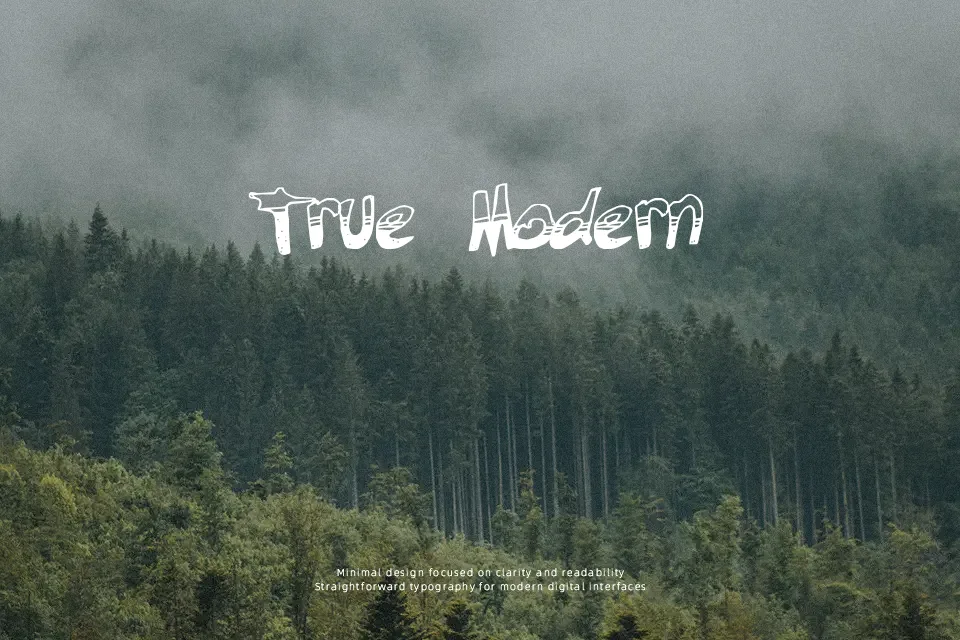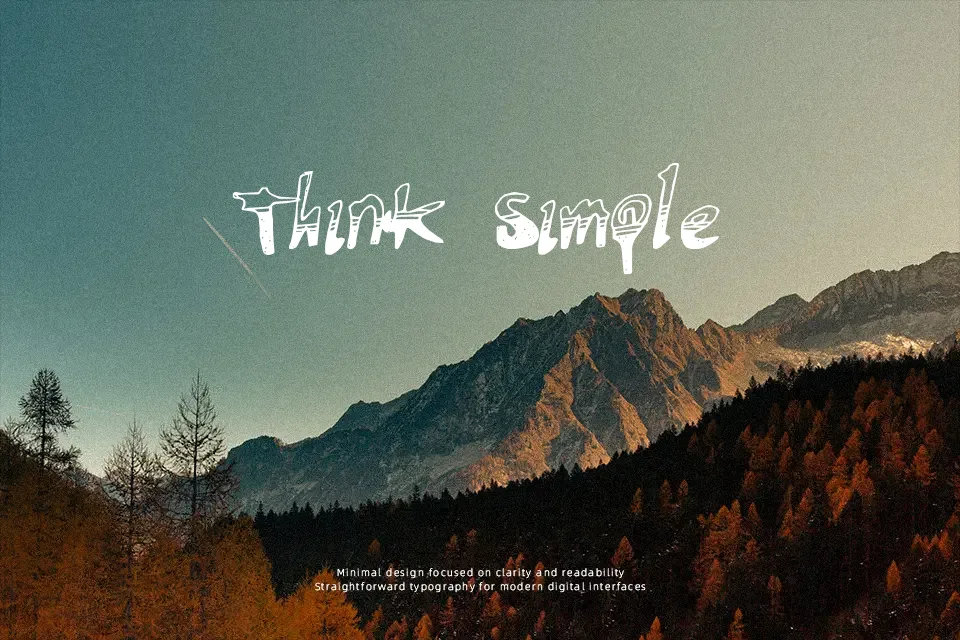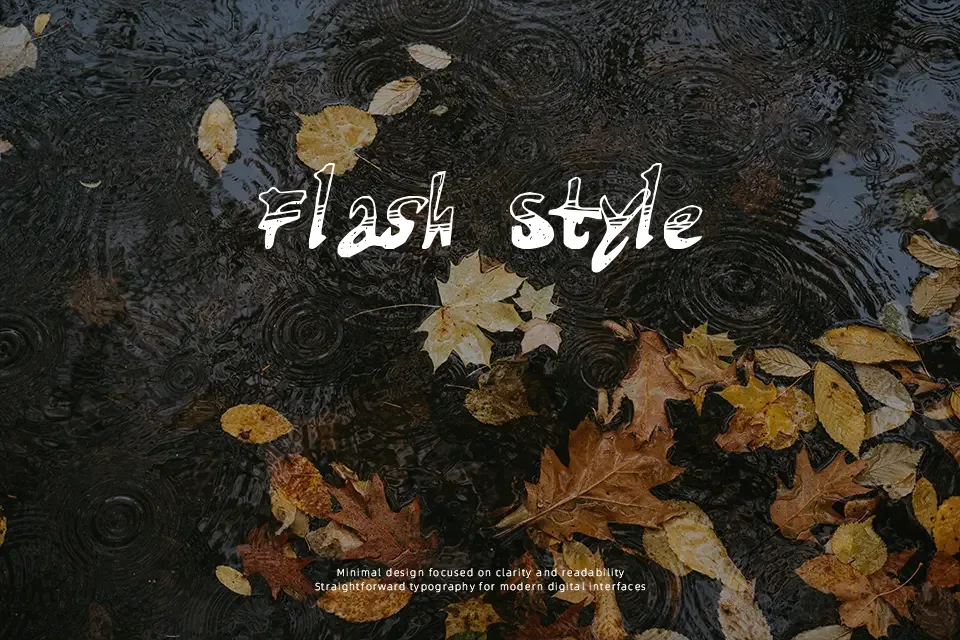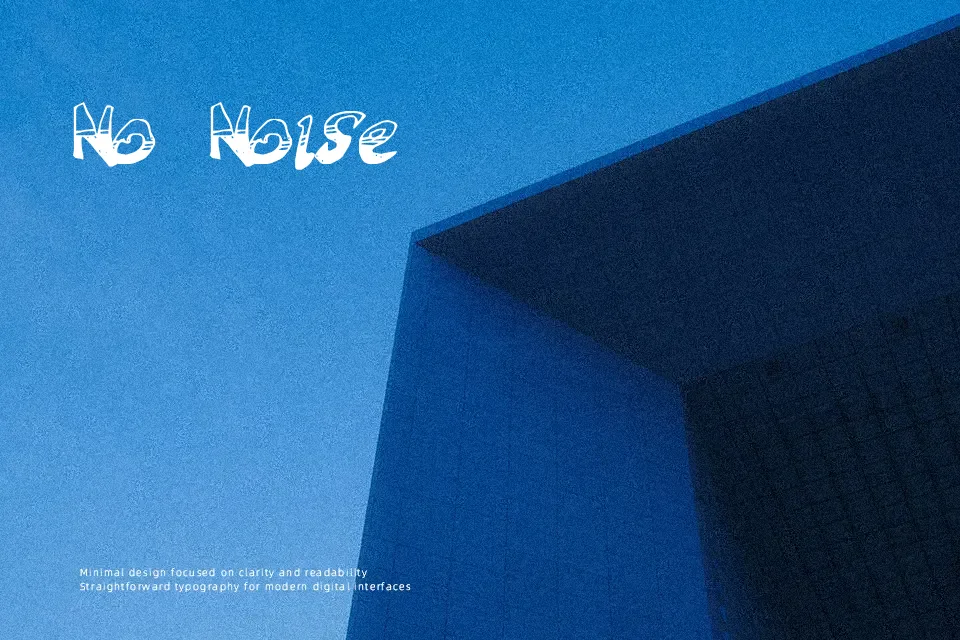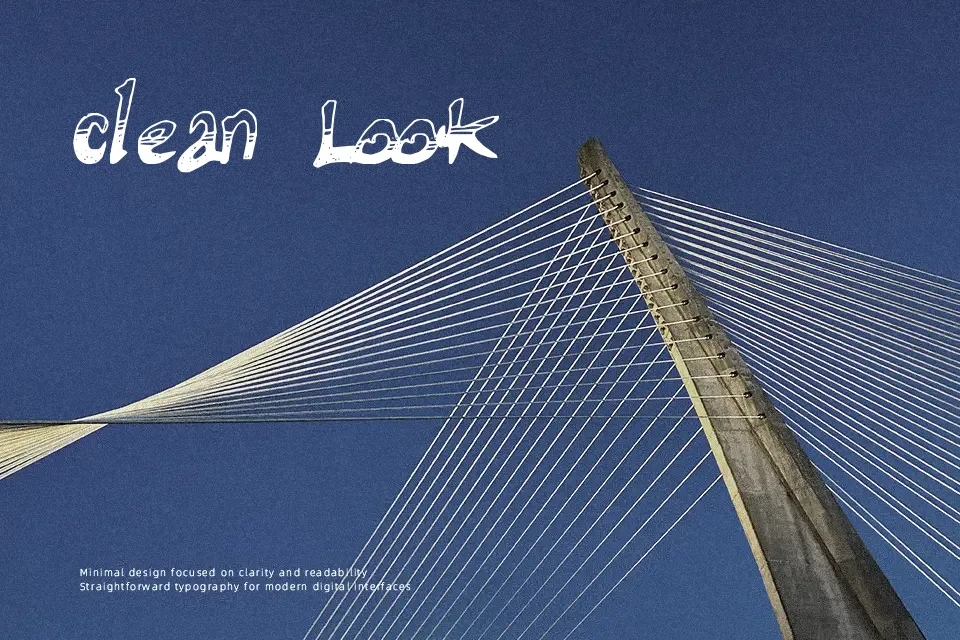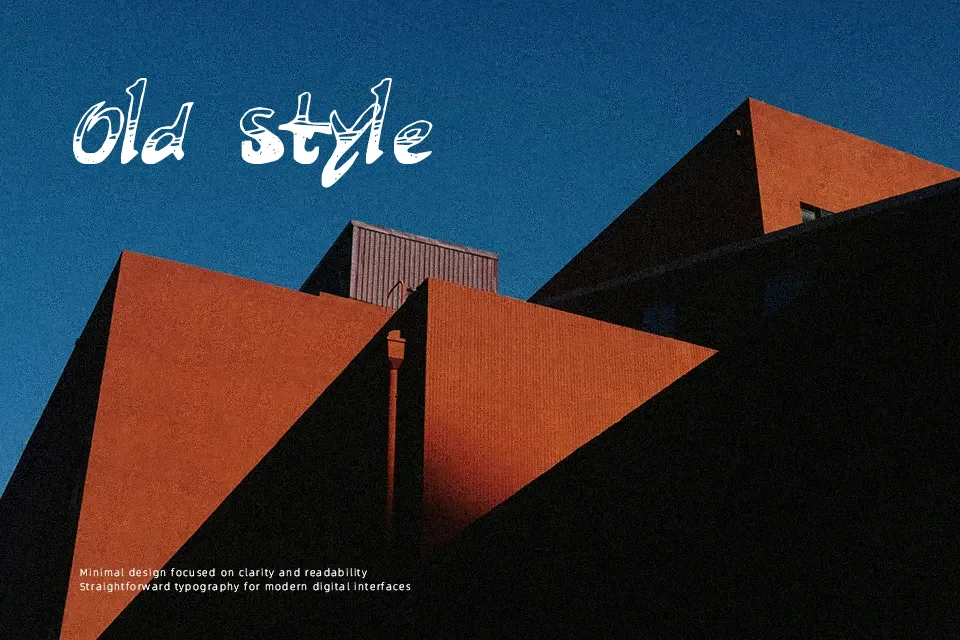
Tired Terrorist Font
Designed by Mr.Fisk Fonts
Featuring expressive, hand-rendered contours and exaggerated angles, Tired Terrorist Font delivers an energetic display presence inspired by street graffiti and animated comics. The letterforms combine irregular stroke weights with unpredictable baseline shifts, producing an animated visual rhythm across uppercase and lowercase sets. Proportions remain somewhat loose, while the character spacing stays moderately compact to keep display words cohesive. Because the strokes prioritize spontaneous shape over uniform geometry, the typeface excels in skate graphics, music festival flyers, and dynamic package headers where personality matters. However, dense paragraphs and compact UI labels suffer from severe legibility loss. The design functions most effectively when given generous breathing room at commanding sizes.
Best For: arcade game banners, underground comic book covers, skate apparel graphics
Not Ideal For: long paragraph text, corporate reports, small interface labels
Perfect for gaming, headline, and music, with a bold and cartoon style.